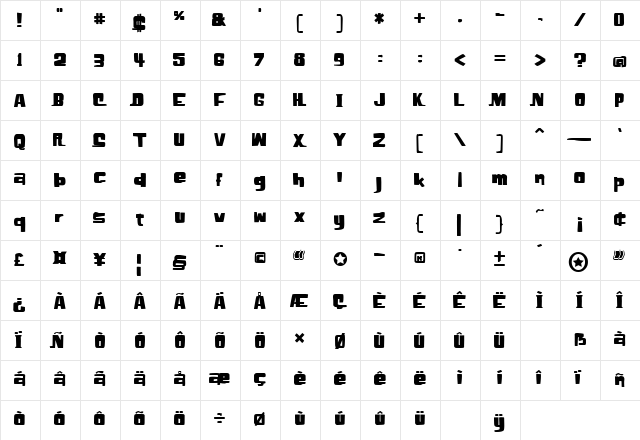
ElHombre Regular
Design Context for ElHombre Typeface
ElHombre is a composed and adaptable typeface that performs quietly and consistently across a wide range of design contexts.